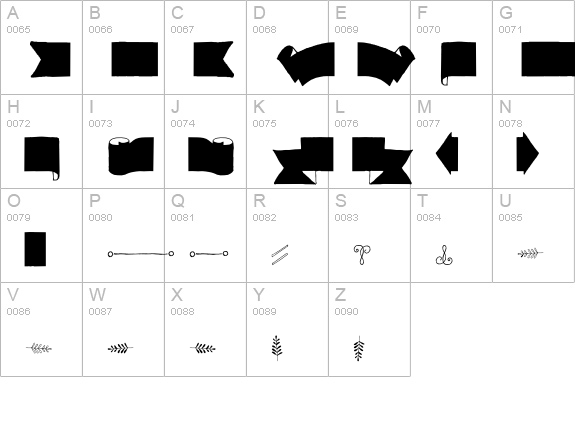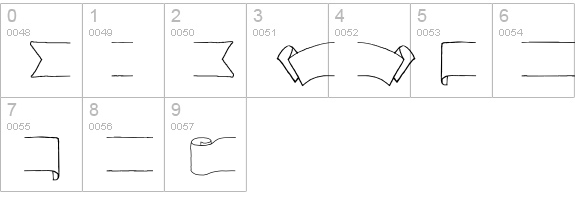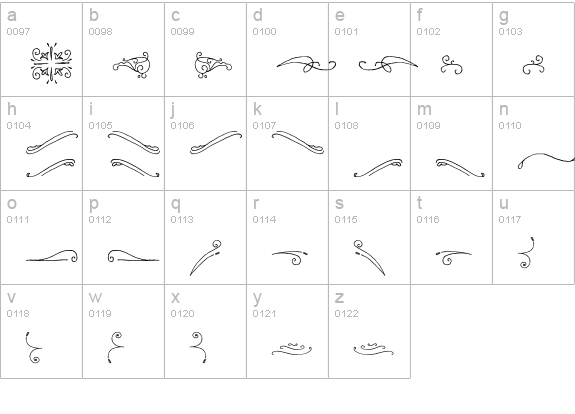
Chameleon Sketch Extra font is a versatile and eye-catching typeface that adds a playful touch to any design. With its unique hand-drawn style and quirky charm, this font is perfect for projects that require a fun and creative look. The irregular lines and unpredictable strokes give Chameleon Sketch Extra font a dynamic and artistic feel that will make your designs stand out. The best part is that Chameleon Sketch Extra font is completely free to download at FontsMarket.com. Whether you're working on a poster, logo, or social media graphic, this font will bring a fresh and energetic vibe to your project. Don't miss out on this fantastic font that is sure to inspire your creativity and make your designs pop!